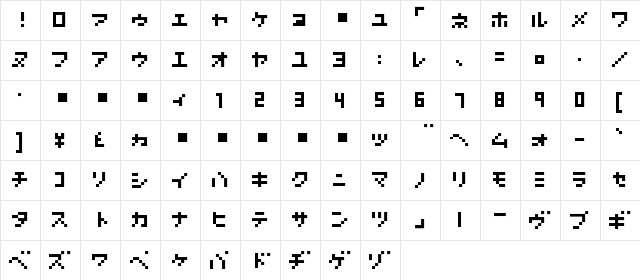
Nanoscopics Katakana
Design Context for Nanoscopics Typeface
Nanoscopics is a composed and adaptable typeface that performs quietly and consistently across a wide range of design contexts.